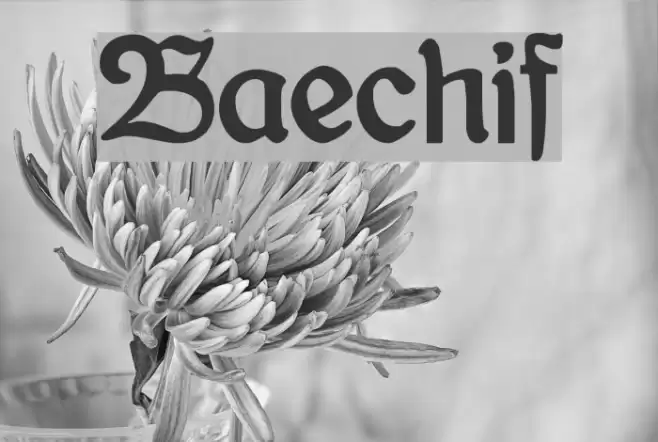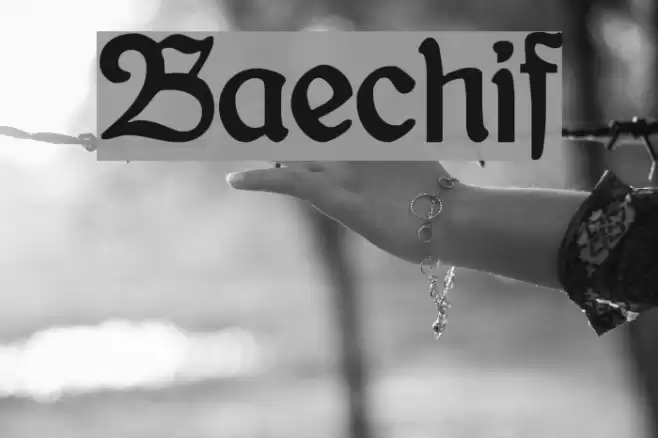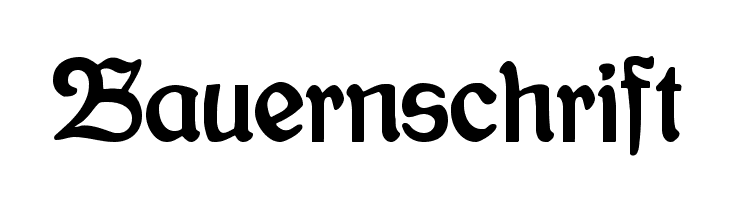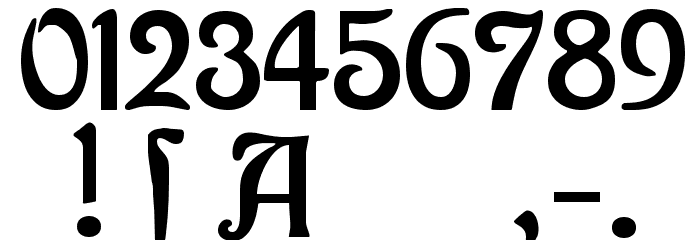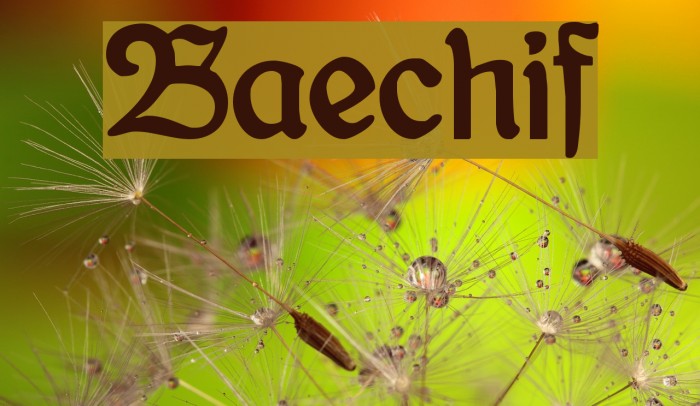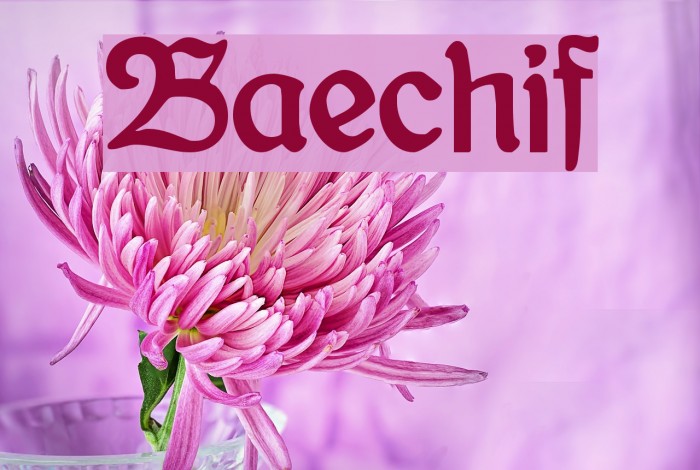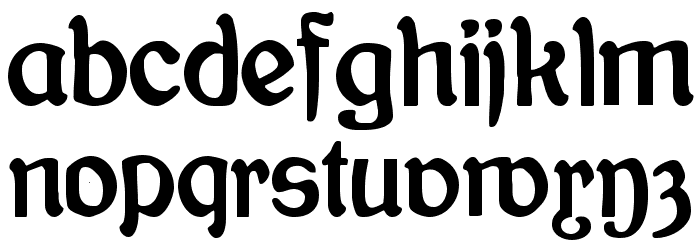
Bauernschrift Font
Bauernschrift Description
This font features a bold and decorative style with a strong blackletter influence, characterized by its intricate and ornate letterforms. The uppercase letters are particularly elaborate, with flourishes and curves that give a sense of historical elegance. The lowercase letters maintain a more straightforward design, yet still carry the decorative essence. Numbers and special characters are consistent with the overall style, offering a cohesive look. This font is ideal for projects that require a touch of vintage or medieval flair, making it suitable for themed events, branding, or artistic designs.
A bold, decorative font with blackletter influences and ornate letterforms from Uncategorized fonts.
- Proposed Projects: Ideal for vintage-themed designs, branding, posters, and artistic projects requiring a historical touch.
- Overall Style: Vintage